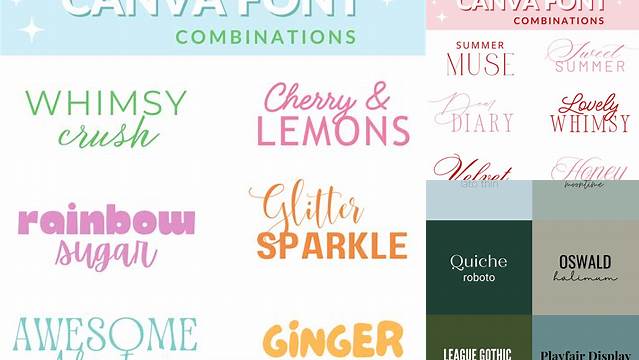
Aesthetic Canva Font Combinations: Design Guide
Hey guys! Ever wondered how to make your Canva designs pop with the perfect font pairings? Choosing the right fonts can be a game-changer, turning a good design into a great one. This guide is all about unlocking the secrets to aesthetic Canva font combinations that will make your projects shine. Let's dive in!
1. Understanding Font Psychology for Canva
Font psychology is all about how different fonts evoke different emotions and perceptions. When you're working in Canva, it’s crucial to understand this. For example, a bold, sans-serif font might convey strength and modernity, while a flowing script font could suggest elegance and creativity. Think about your brand or the message you want to send. Is it playful, serious, or sophisticated? Understanding font psychology helps you align your font choices with your design's overall feel. For instance, if you're designing a poster for a kids' event, a playful, rounded font would be a better choice than a formal serif font. By mastering font psychology, you can create designs that not only look good but also resonate with your audience on an emotional level. This is a key ingredient for truly impactful design work. Remember, fonts aren't just about readability; they're about communication.
2. Pairing Serif and Sans-Serif Fonts in Canva
Pairing serif and sans-serif fonts is a classic technique for creating visually appealing designs in Canva. Serif fonts, with their little “feet” or strokes at the ends of the letters, often feel traditional and formal. Think Times New Roman or Georgia. Sans-serif fonts, on the other hand, are cleaner and more modern, like Arial or Helvetica. The trick is to use these contrasting styles to create visual interest. For example, you might use a bold serif font for your headings and a simple sans-serif font for the body text. This combination provides a clear hierarchy and makes your design easy to read. Alternatively, you could use a sans-serif font for the heading to give it a contemporary edge and pair it with a serif font for the body text to add a touch of sophistication. The key is balance. You want the fonts to complement each other, not compete. Experiment with different pairings in Canva to see what works best for your specific project. There are tons of combinations; the possibilities are endless!
3. Exploring Script and Display Font Combinations in Canva
Script and display fonts are fantastic for adding personality and flair to your Canva designs. Script fonts, mimicking handwriting, bring elegance and a personal touch. Display fonts, which are more decorative and unique, can make a statement and grab attention. When combining these fonts, it's all about finding the right balance. A general rule of thumb is to use script and display fonts sparingly, as they can be overwhelming if overused. Pair a delicate script font with a clean, sans-serif font for a sophisticated look. For a bolder design, try combining a strong display font with a simple sans-serif or serif font. The idea is to let the script or display font shine without overpowering the rest of the design. Think about the mood you want to create. A whimsical script font paired with a playful display font might be perfect for a birthday invitation, while a classic script font combined with a professional sans-serif font could work well for a business card. Have fun experimenting and see what unique combinations you can come up with in Canva! Remember, the best designs often break the rules in creative ways.
4. Best Canva Font Pairings for a Modern Look
If you're aiming for a modern look in your Canva designs, the right font pairings are essential. Modern design often leans towards clean lines, simplicity, and a touch of sophistication. For this, you'll want to consider sans-serif fonts as they tend to have a contemporary feel. A great combination for a modern aesthetic is pairing Montserrat with Raleway. Montserrat is a versatile sans-serif that works well for both headings and body text, while Raleway adds a touch of elegance with its slightly condensed form. Another fantastic option is Open Sans paired with Lato. Open Sans is known for its readability, making it perfect for body text, and Lato offers a modern, friendly vibe that complements it beautifully. To achieve a truly modern look, try using different weights of the same font family. For example, you could use a bold version of Montserrat for the heading and a regular weight for the body text. This creates a cohesive and clean design. Remember, modern design is about clarity and simplicity, so choose font pairings that reflect that.
5. Classic Font Combinations to Use in Canva
Sometimes, you just can't beat the classics! In Canva, certain font combinations have stood the test of time and continue to deliver elegant and effective designs. These classic pairings often rely on the timeless appeal of serif fonts, which exude sophistication and professionalism. One unbeatable classic is Times New Roman paired with Arial. Times New Roman brings a sense of tradition and authority, while Arial provides a clean, readable sans-serif counterpart. This combination is perfect for formal documents, reports, or anything that needs a serious touch. Another reliable option is Georgia paired with Verdana. Georgia is a serif font designed for on-screen readability, making it excellent for body text, and Verdana, a clear and legible sans-serif, works well for headings. This pairing is ideal for websites and digital content. For a slightly more modern take on a classic look, try Playfair Display paired with Montserrat. Playfair Display is an elegant serif font perfect for headings, and Montserrat is a versatile sans-serif that complements it beautifully. These classic font combinations are your go-to choices when you want to create a design that is both timeless and professional.
6. Canva Font Combinations for Headlines
Headlines are your design's first impression, so choosing the right font combination in Canva is crucial to grabbing attention. You want something that's both eye-catching and readable. For bold, impactful headlines, consider pairing a strong display font with a clean sans-serif font for the subheadings or body text. For example, Bebas Neue, a tall and impactful sans-serif, works beautifully with Roboto, a versatile and readable font. This combination creates a clear hierarchy and ensures your message is easily understood. If you're aiming for a more elegant headline, try pairing a serif font like Playfair Display with a simple sans-serif like Open Sans. Playfair Display adds a touch of sophistication, while Open Sans keeps the overall design clean and modern. Another fantastic option for headlines is using different weights of the same font family. For instance, a bold version of Montserrat for the main headline paired with a lighter weight for the subheadline creates a cohesive and professional look. Remember, your headline font should be attention-grabbing but still align with your overall design aesthetic. It’s all about making that first impression count!
7. Best Body Text Font Pairings in Canva
When it comes to body text in Canva, readability is king. You want a font that's easy on the eyes, especially for longer passages of text. The goal is to ensure your audience can comfortably read your content without straining. Some of the best body text fonts are clean and simple, such as Open Sans, Lato, and Roboto. These sans-serif fonts are known for their legibility and versatility. Pairing these fonts with slightly more decorative fonts for headings can create a balanced and professional design. For example, Open Sans is often paired with Montserrat for a modern and clean look. Lato, with its friendly and approachable vibe, works well with Raleway, which adds a touch of elegance. Roboto is a great all-around choice that pairs well with a variety of fonts, including Bebas Neue for a bolder statement. When choosing a body text font, consider the overall tone of your design. If you're aiming for a classic look, a serif font like Georgia might be a good option. However, for most modern designs, a clean sans-serif font is the way to go. Remember, the best body text font is one that your audience won't even notice – because they're too busy reading your content!
8. Font Combinations for Branding in Canva
Branding is all about creating a consistent visual identity, and font combinations play a crucial role in this. In Canva, choosing the right fonts for your brand can help you convey your personality and values. Think about what your brand represents. Is it modern and innovative? Classic and trustworthy? Or playful and creative? Your font choices should reflect this. For a modern brand, consider pairing sans-serif fonts like Montserrat and Raleway. These fonts are clean, contemporary, and versatile. For a more classic and sophisticated brand, a serif font like Playfair Display paired with a clean sans-serif like Open Sans can create a timeless look. If your brand is playful and creative, you might experiment with script or display fonts. However, use these sparingly and pair them with a simple sans-serif font to maintain readability. It's essential to choose a primary and secondary font for your brand and use them consistently across all your designs, from logos and social media graphics to website headers and marketing materials. Consistency in font choice helps build brand recognition and reinforces your brand's identity. When selecting fonts in Canva, consider the overall aesthetic you want to achieve and how it aligns with your brand’s mission and vision.
9. Canva Font Pairings for Social Media Graphics
Social media graphics need to grab attention quickly, so your font choices in Canva are super important. You want combinations that are eye-catching, readable, and on-brand. Since people often scroll quickly through social feeds, ensure your text is legible at a glance. For impactful social media graphics, try pairing a bold font for headlines with a clear, easy-to-read font for body text or captions. For example, Bebas Neue paired with Roboto is a great combination for headlines and short captions. Bebas Neue is tall and attention-grabbing, while Roboto is clean and readable. If you're looking for something a bit more stylish, Montserrat paired with Raleway is another solid option. Montserrat is versatile and works well for both headings and body text, while Raleway adds a touch of elegance. When designing for platforms like Instagram, where visuals are key, consider using a script font sparingly for accents or highlighting keywords. Just make sure to pair it with a legible sans-serif font so your message doesn't get lost. Remember to maintain consistency with your brand fonts across all your social media graphics. This helps build brand recognition and makes your content instantly identifiable. Experiment with different font sizes and weights to create visual interest and hierarchy within your design. The goal is to create graphics that stop the scroll and convey your message effectively.
10. Pairing Fonts for Presentations in Canva
Creating engaging presentations in Canva is all about clear communication, and your font choices play a vital role. The fonts you choose should be legible from a distance and project a professional image. For presentations, you typically need a font combination that works well for headings, subheadings, and body text. A classic pairing for presentations is a clean sans-serif font like Open Sans for body text and a slightly bolder sans-serif font like Montserrat for headings. This combination provides excellent readability and creates a clear visual hierarchy. Another great option is Lato for body text and Roboto for headings. Lato is known for its friendly and approachable vibe, while Roboto is versatile and works well in various contexts. When choosing fonts for presentations, avoid overly decorative or script fonts, as they can be difficult to read on a screen. Stick to clean, simple fonts that convey your message effectively. Use font sizes that are large enough to be easily seen by everyone in the room. A general rule of thumb is to use at least 24 points for body text and larger for headings. Consistent font usage throughout your presentation will also help maintain a professional and polished look. Your font choices should support your message, not distract from it. The goal is to make your presentation clear, concise, and visually appealing.